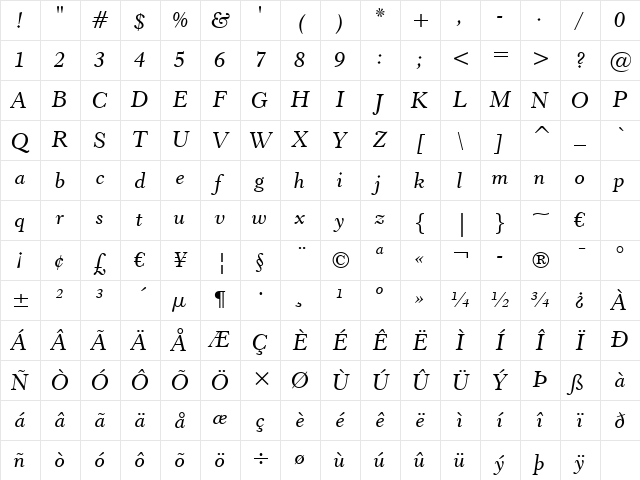
Revivl555 SeBd BT Semi Bold Italic
Style: Semi Bold Italic
Design Context for Revivl555 SeBd BT
Revivl555 SeBd BT is a composed and adaptable typeface that performs quietly and consistently across a wide range of design contexts. The slanted form adds forward momentum and visual energy. Its bold stroke weight gives it real presence on the page.
Pro Tip: Use Revivl555 SeBd BT for emphasis, pull quotes, and subheadings where its slanted energy can add rhythm to the layout.